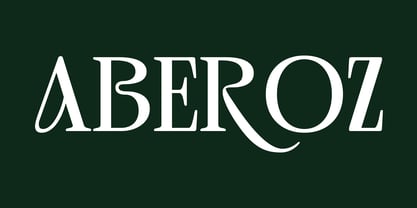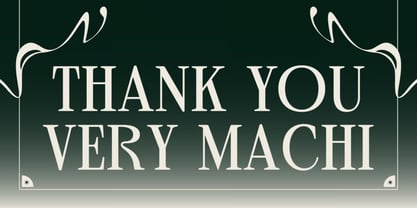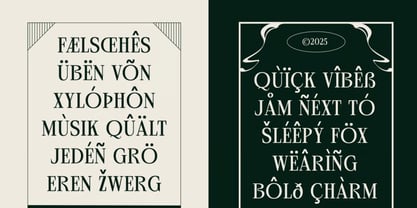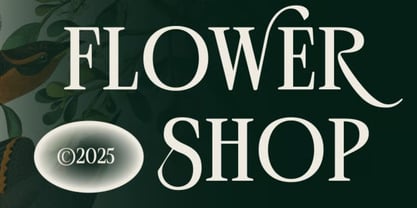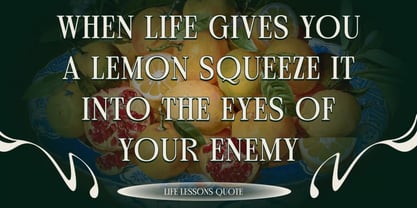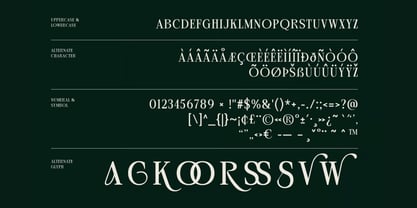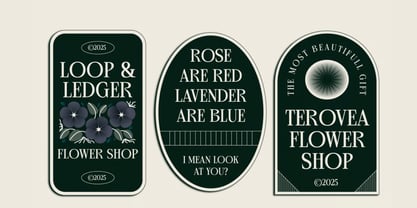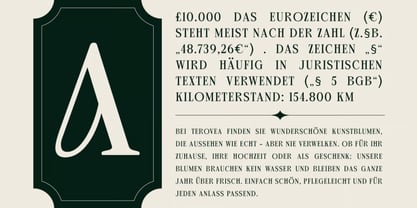
Aberoz
by Hasnat Studio
The Aberoz Font Family was designed by Hasnat Khan and published by Hasnat Studio. Aberoz contains 1 styles. More about this family
Aberoz is a contemporary serif font characterized by its refined letterforms and graceful curves, designed to infuse elegance and sophistication into every project. Ideal for posters, invitations, headlines, and classic design themes, Aberoz offers a polished and timeless aesthetic that enhances both readability and style. Whether you are crafting branding elements, editorial layouts, packaging, or promotional designs, Aberoz adds personality and distinction, ensuring your message stands out with confidence and clarity. Its balanced design makes it suitable for both digital and print applications. ✿ Key Features: - Refined Letterforms & Graceful Curves: Elegant serif design for timeless appeal. - Uppercase & Lowercase Letters: Complete set for versatile design applications. - Numerals & Punctuation: Fully equipped for professional typography. - Multilingual Support: Includes accented characters for extended language compatibility. ✿ Perfect For: - Branding & Logo Design: Create sophisticated and memorable brand identities. - Posters & Headlines: Ideal for eye-catching and professional display typography. - Invitations & Packaging: Adds elegance to printed materials and product designs. - Album Art & Game Visuals: Enhances creative projects with style and personality. - Promotional Materials & Marketing: Perfect for social media, advertisements, and campaigns. Elevate your designs with Aberoz — a contemporary serif typeface that seamlessly combines elegance, versatility, and timeless sophistication for every creative endeavor.
Designers: Hasnat Khan
Foundry: Hasnat Studio